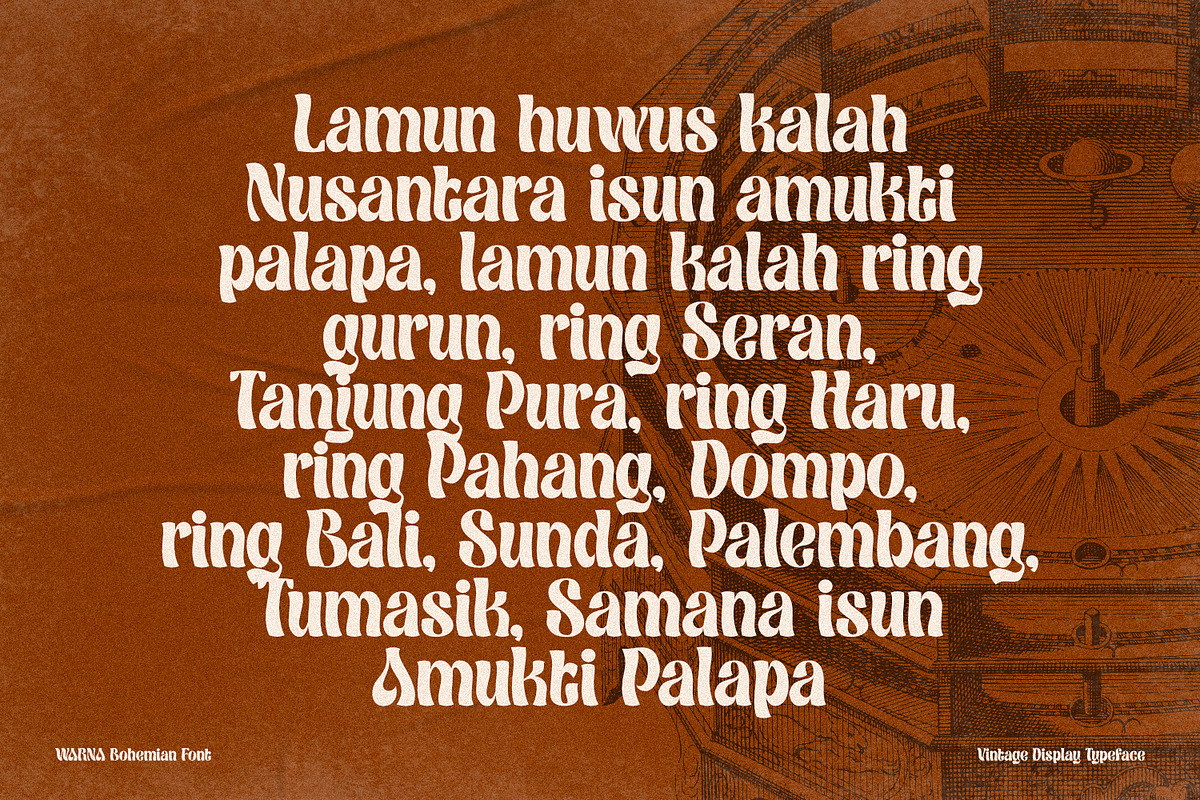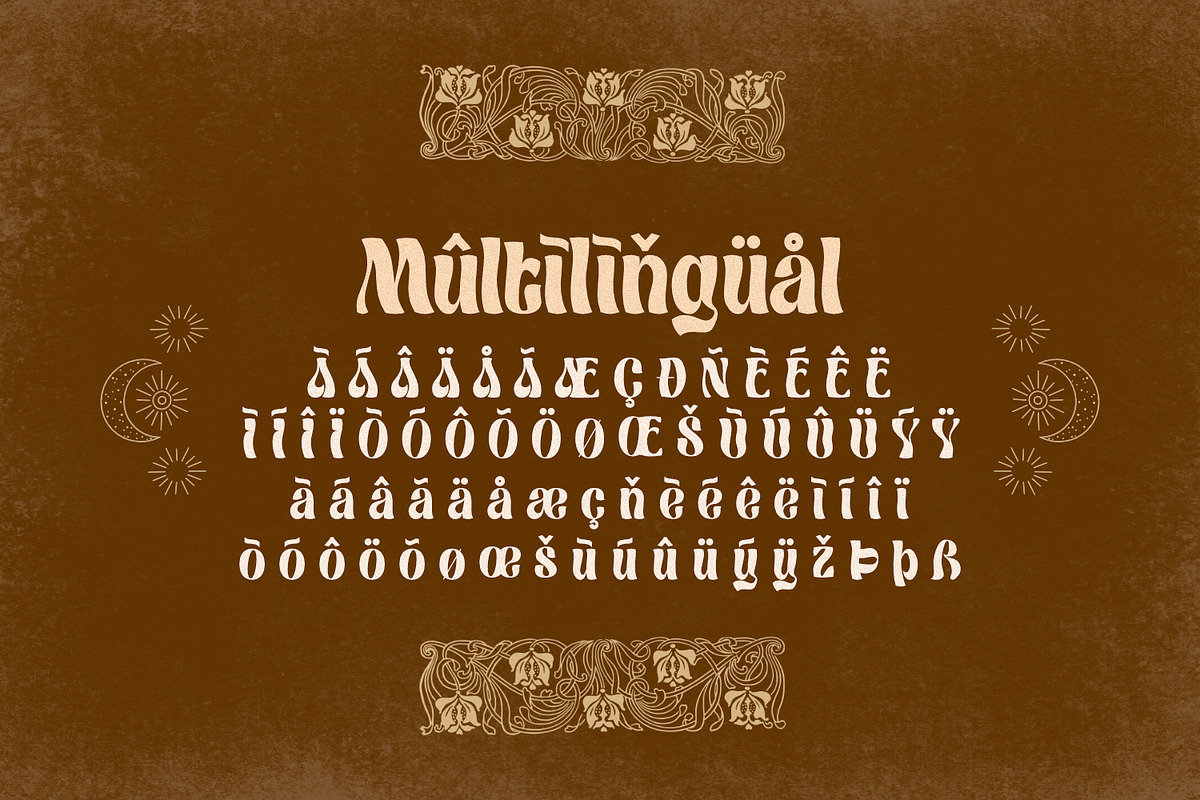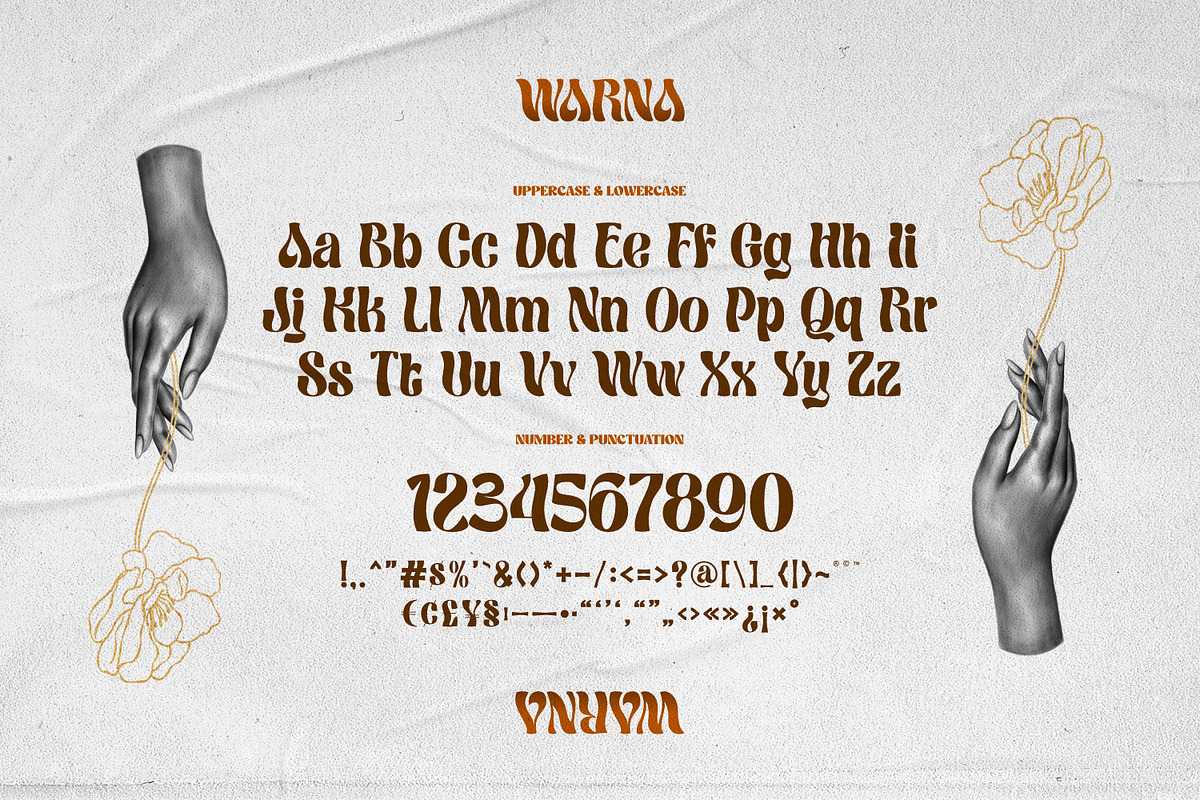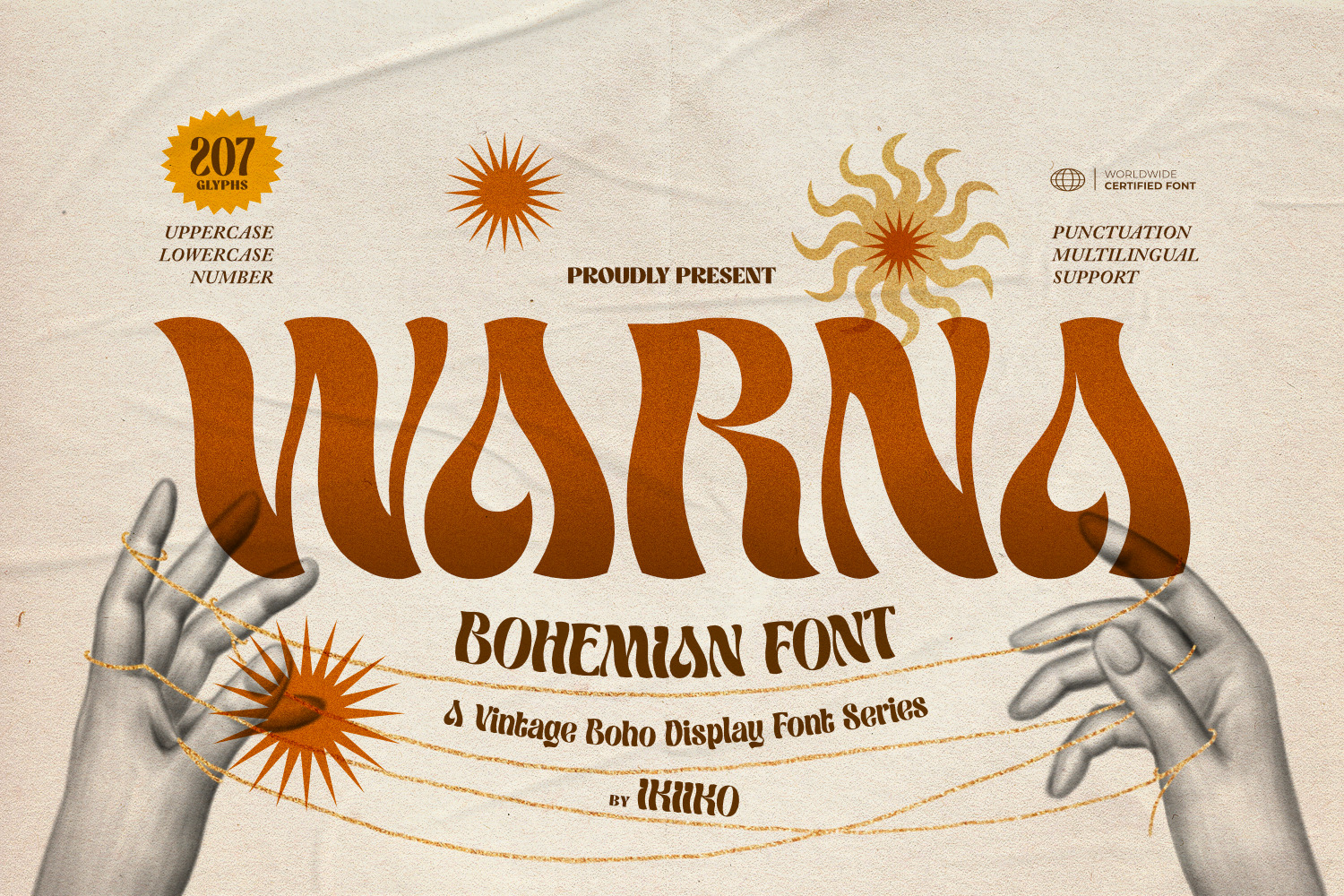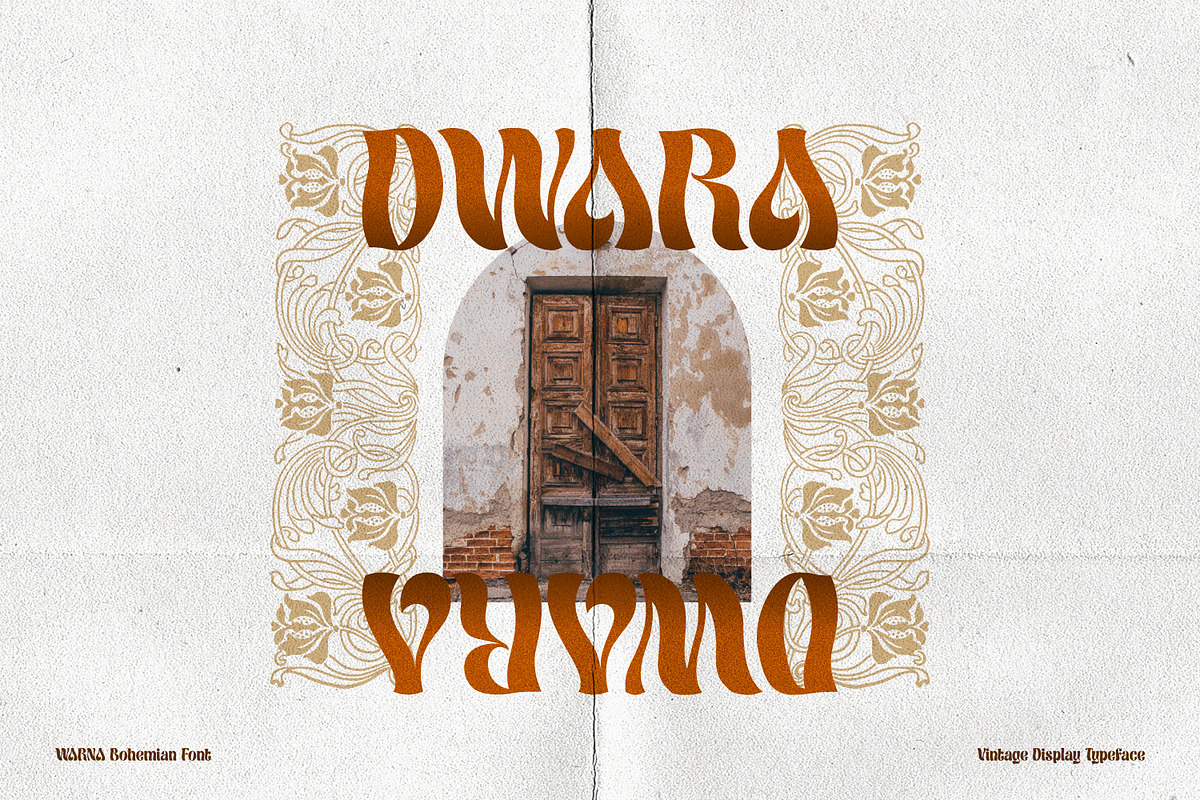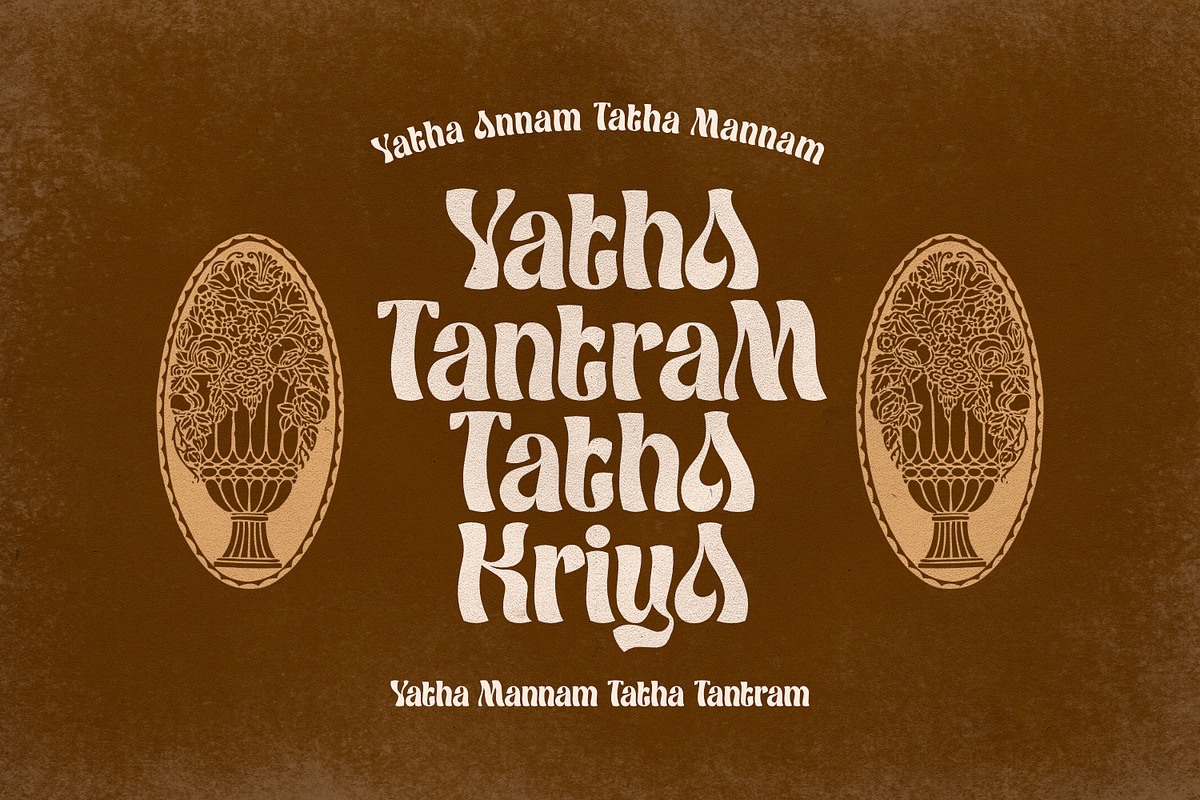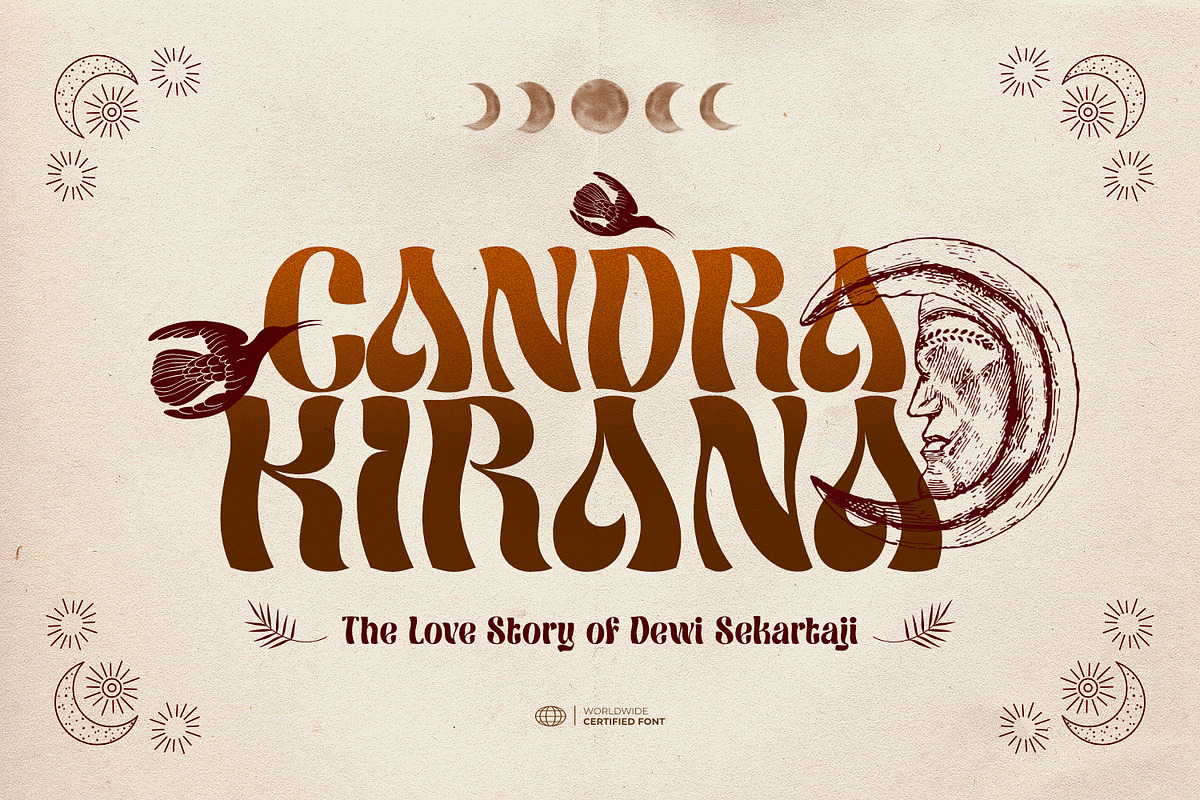
Warna - Bohemian Font
Proudly present Warna - Bohemian Font, created by ikiiko.
With a design that is both fun and retro-inspired, Warna perfectly embodies that character. The font in question moves to the beat of your imagination. Each figure has a distinctive, hand-crafted quality, as though they were lovingly and enthusiastically created on a worn-out journal from the 1960s.
"Warna" is more than simply a typeface; it's a lively storyteller who tells old tales with a contemporary twist. Its vibrant and youthful appeal makes it ideal for branding with a bohemian or retro aesthetic. The letters serve as your artistic friends, encouraging you to express your ideas with bold strokes that evoke the liberation of a joyful party.
This font is very suitable for making a bohomian stuff, vintage boho brand, poster, magazine layout, fashion design, quotes, or simply as a stylish text overlay to any background image.